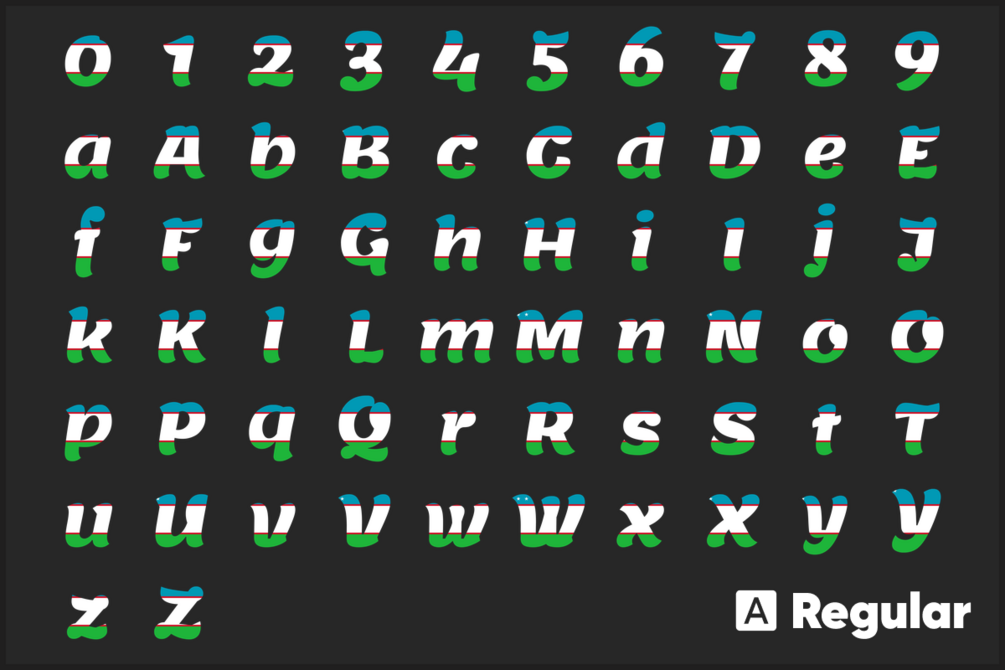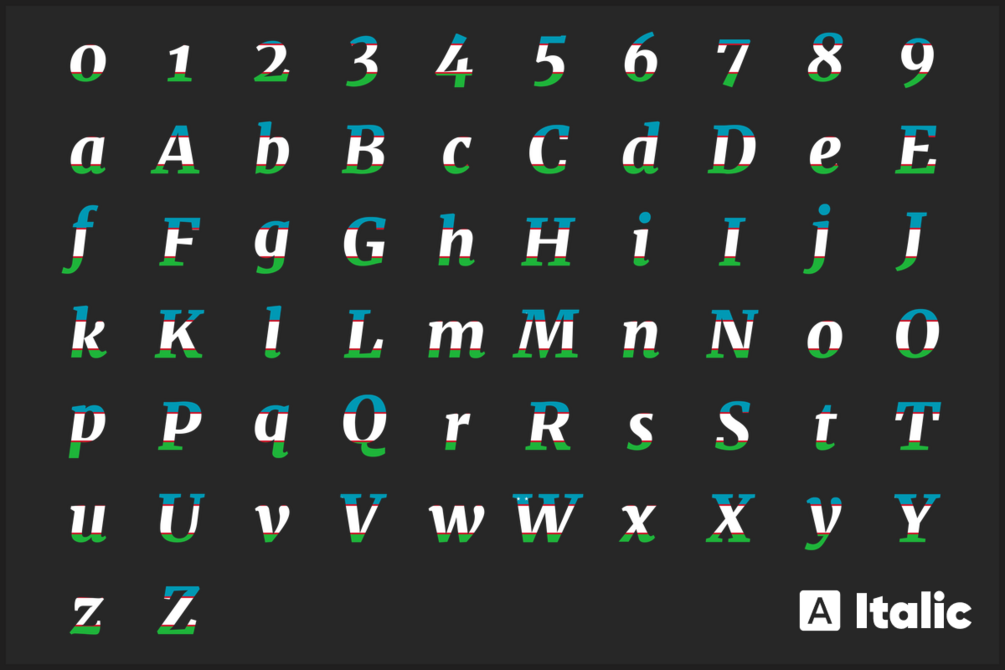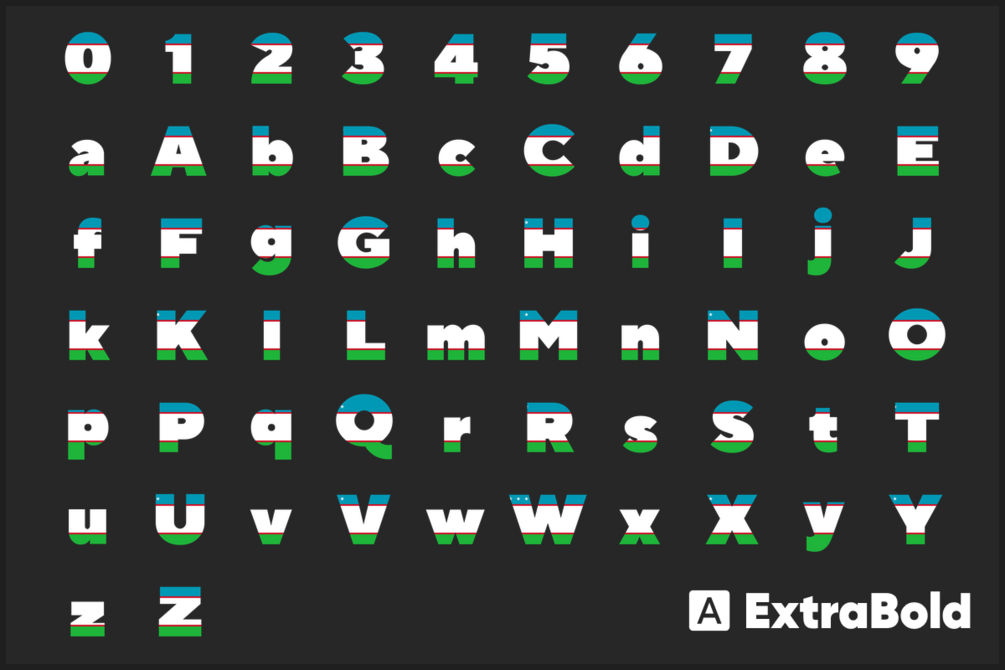
Looking for a stylish and creative way to express your love for your country? Look no further than Uzbekistan Font free download Flag Font, Alphabet. Our high-quality country font images are perfect for all your crafting needs, including t-shirt designs, scrapbooking, photo albums, card making, mug designs, prints, and more.